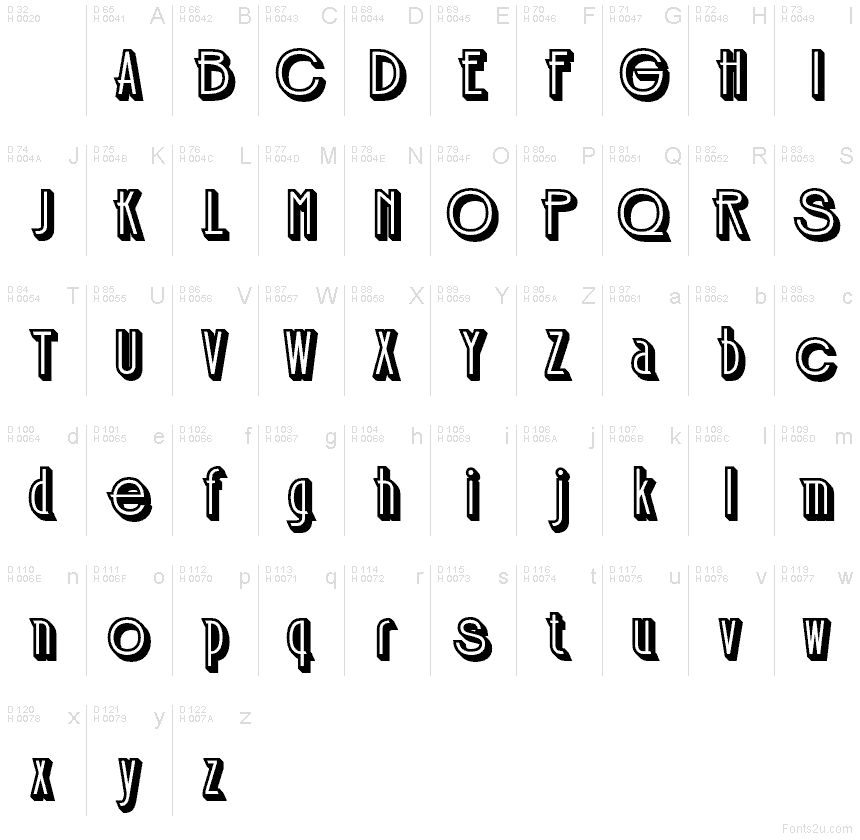
Jerio-ExtrudeRight Demo
Jerio ExtrudeRight font is a free condensed display font designed by Craft Supply Co. The retro and truly vintage character of this font takes its ideas from 3D geometric shapes inspired by the 70s. Originally, this was made as an all-caps eye-catching typeface with bold captivating features achieved through the extrusion layer effect.
The multifaceted possibilities of Jerio make it suitable for book and movie titles, posters, covers, headers, branding projects, advertising designs that really need to stand out visually. Plus product packaging/labeling and many more use cases!